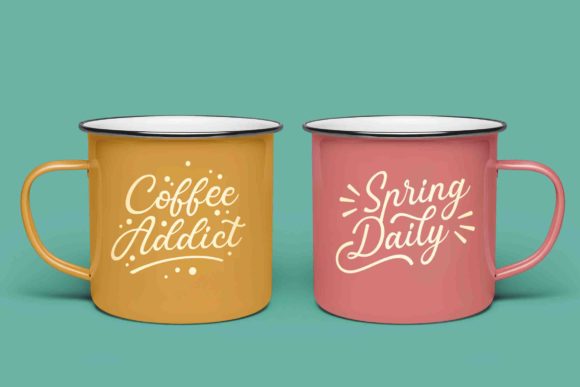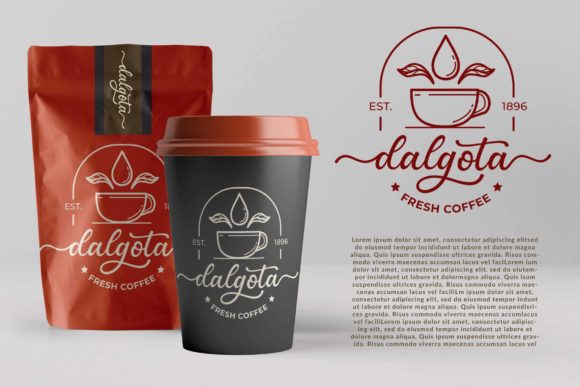
Highline Font
db-ku.com - Script & Handwritten -- Highline feels magical and lovely, but also elegant. Get inspired by its imaginative charm, and turn any design project into a true standout!